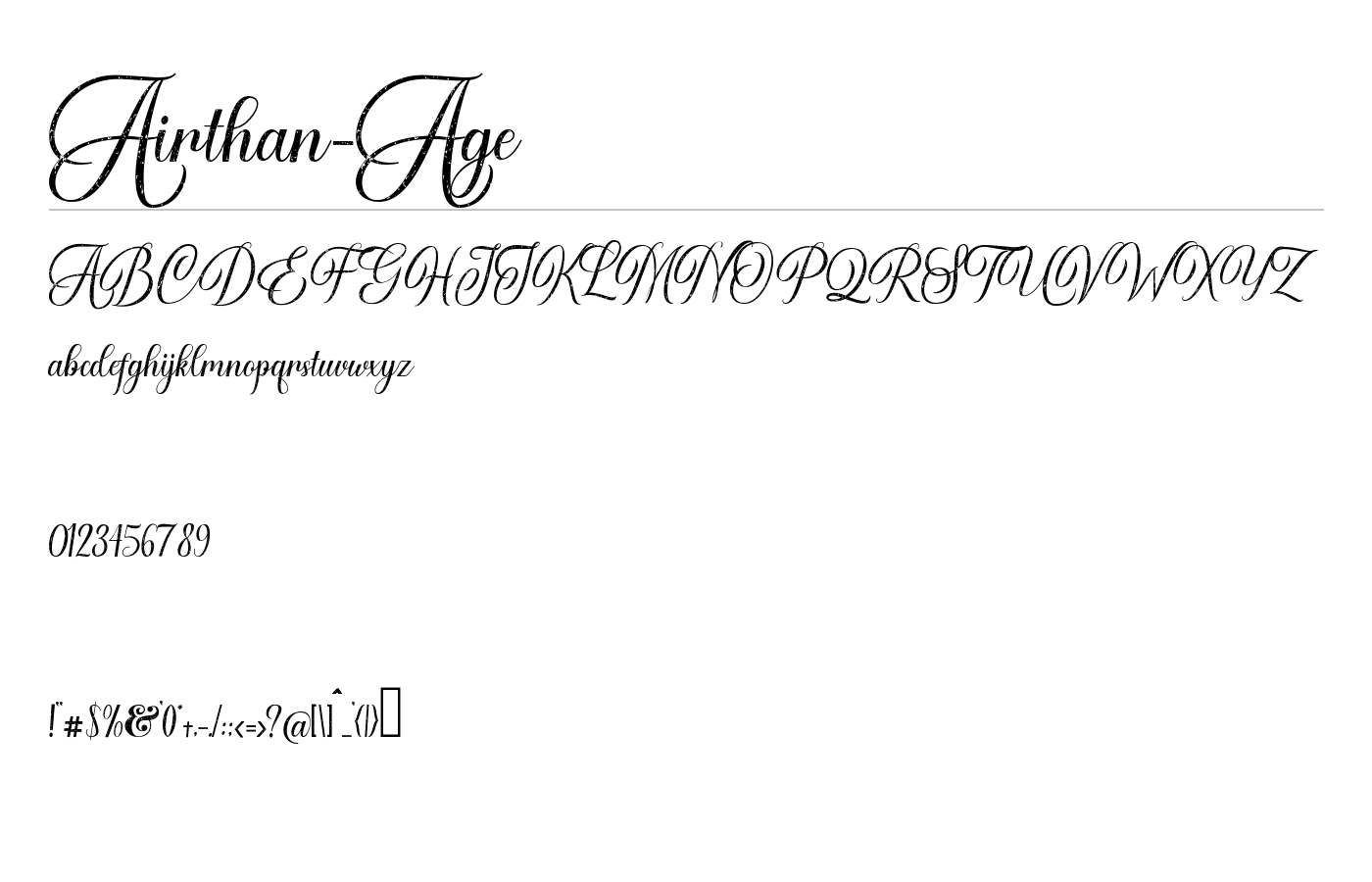
Airthan-Age is an elegant script font featuring graceful, flowing letterforms with high contrast between thick and thin strokes, giving it a refined and sophisticated feel. Its delicate curves and classic calligraphic style make it ideal for luxury branding, wedding invitations, and upscale editorial designs that seek a timeless, romantic touch. This font works best in headlines or decorative text where its artistic flair can truly shine.
Airthan-Age Font
About Airthan-Age Font